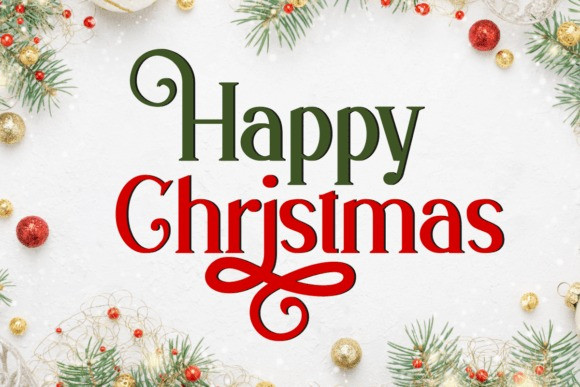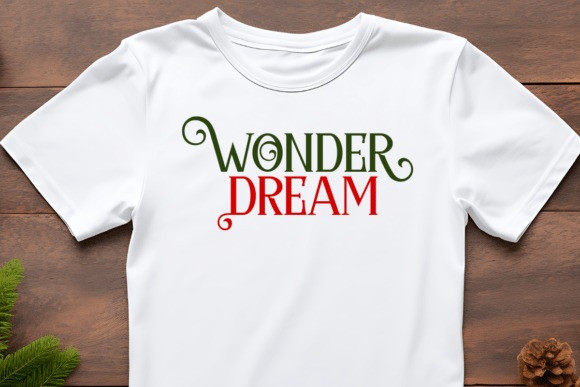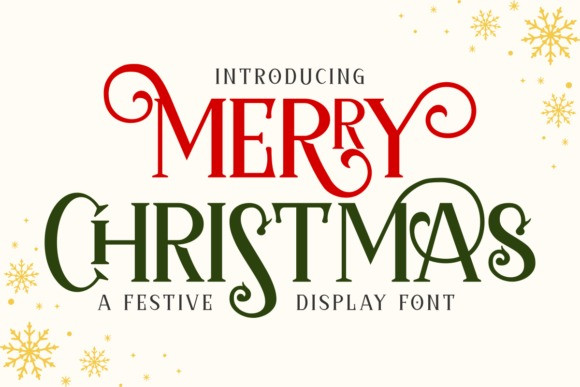
Merry Christmas Type
Merry Christmas Type is a decorative festive display font that brings the holiday spirit to life with its joyful and elegant charm. Its curly swashes and cheerful, playful letterforms make every design sparkle with the warmth and magic of the season.
Perfect for Christmas cards, invitations, tote bags, mugs, ornaments, posters, gift tags, and so much more, Merry Christmas is designed to add a whimsical yet sophisticated touch to all your holiday projects. The font’s beautiful alternates and special characters make it easy to create unique and eye-catching compositions, letting your typography truly shine.
Fully PUA-encoded, Merry Christmas ensures seamless access to all alternates, swashes, and decorative elements without the need for additional design software, making customization effortless. Add this festive typeface to your creative toolkit and let your designs sparkle with holiday cheer.